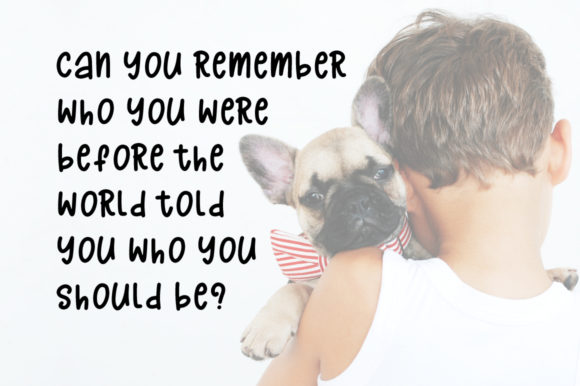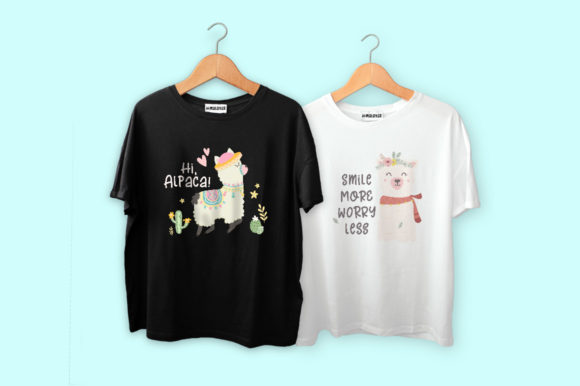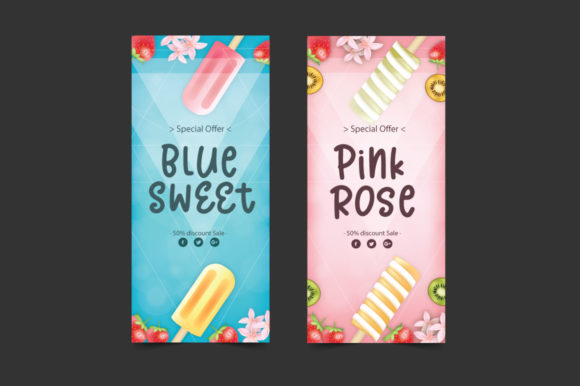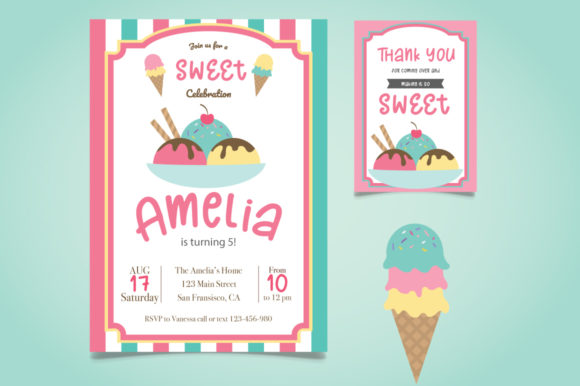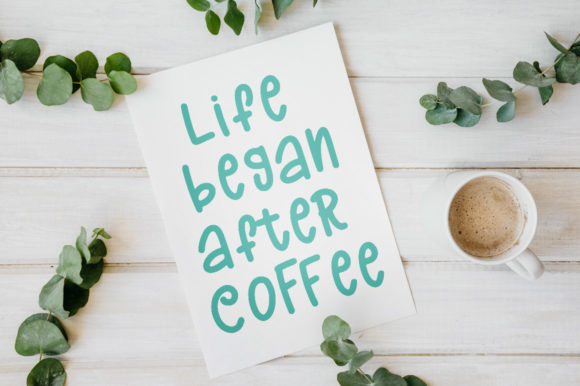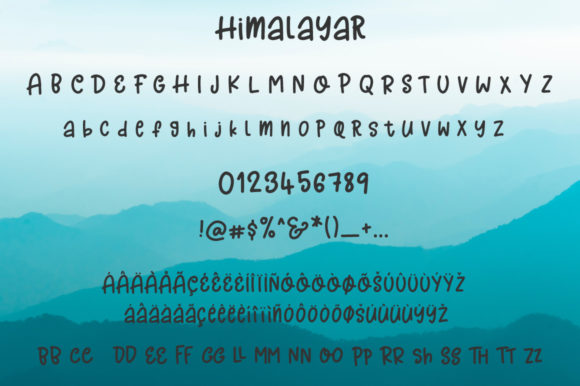
Introduction to Himalayar Font
As designers, we’ve all been there – stuck on a project, struggling to convey the perfect tone or vibe. For me, it was a particularly creative moment when I stumbled upon the Himalayar Font. I was working on a recipe book, and I needed a font that would add a touch of warmth and personality to the casual comments scattered throughout the pages. That’s when I discovered the Himalayar Font, and I knew I had found the perfect design resource.
With its cute handwritten style, the Himalayar Font is incredibly versatile, making it a valuable asset for designers working on a wide range of creative projects. Whether you’re designing a cookbook, a blog, or even a social media campaign, this font is sure to add a touch of high quality and sophistication to your work.
Key Features of Himalayar Font
- High-quality font with a unique and elegant design, perfect for creative projects and design resources.
- Includes a wide range of characters, including letters, numbers, and symbols, making it a versatile design resource.
Honest Review: Himalayar Font
As a designer, I’m always on the lookout for unique and high-quality design resources to elevate my creative projects. The Himalayar Font has caught my attention, and I’m excited to share my honest review.
- ✨ Unique and exotic design: The Himalayar Font features an intricate and stylish design that’s perfect for projects that need a touch of cultural flair.
- ✨ High-quality typography: The font is well-crafted and has a professional finish, making it suitable for a wide range of design applications.
However, I do have a few concerns:
- ⚠️ Limited character set: The font only comes in a limited character set, which may not be ideal for projects that require a wide range of characters.
Overall, I think the Himalayar Font is a great design resource, especially for designers who want to add a unique touch to their creative projects. While it has some limitations, its high-quality design and free download make it a worthwhile addition to any design toolkit.
Tips for Getting the Most Out of Himalayar Font
For the best results, use Himalayar Font in conjunction with other design resources, such as images and graphics. Experiment with different font sizes and styles to create visually appealing designs. Also, consider using a transparent background to make your designs stand out.
Himalayar Font is suitable for a wide range of creative projects, including social media graphics, posters, presentations, reports, and more. Its high-quality design and transparent background make it an ideal choice for designers and non-designers alike.